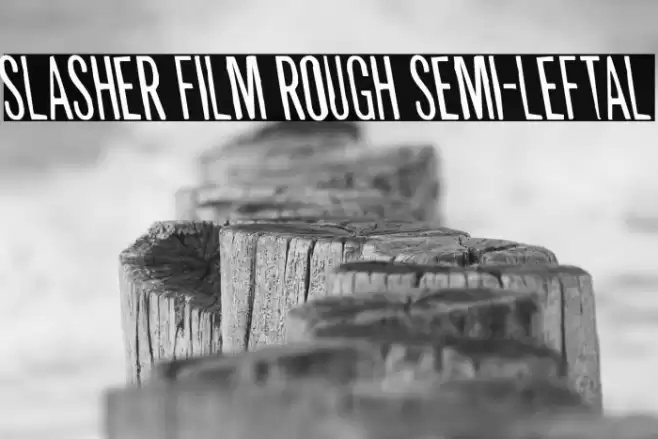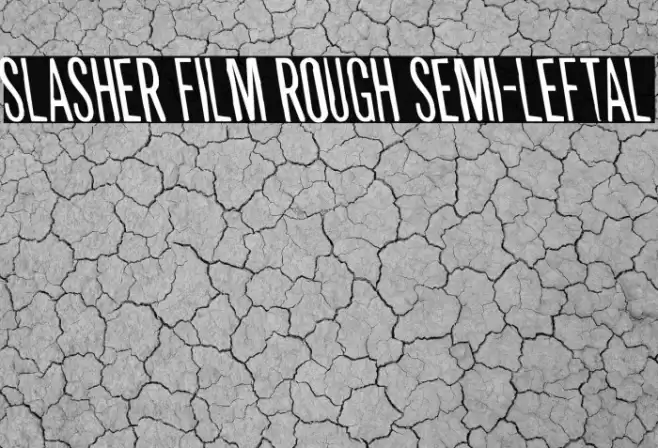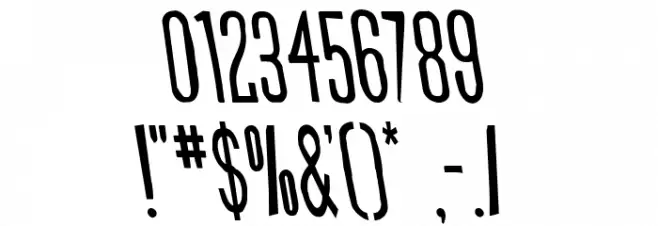
Slasher Film Rough Semi-Leftal Font
Slasher Film Rough Semi-Leftal Description
This font features a bold and edgy design with a rough, semi-distressed appearance. The characters are tall and narrow, giving them a striking and impactful look. The uppercase and lowercase letters maintain a consistent style, with sharp angles and a slightly uneven texture that adds to the rugged aesthetic. The numbers and special characters follow the same design principles, ensuring a cohesive look across all glyphs. The font's unique style makes it ideal for projects that require a dramatic and attention-grabbing typeface.
A bold, rough, and narrow font with a dramatic, distressed style from Regular fonts.
- Font: Slasher Film Rough Semi-Leftal
- Proposed Projects: Ideal for horror movie posters, edgy branding, album covers, and event flyers.